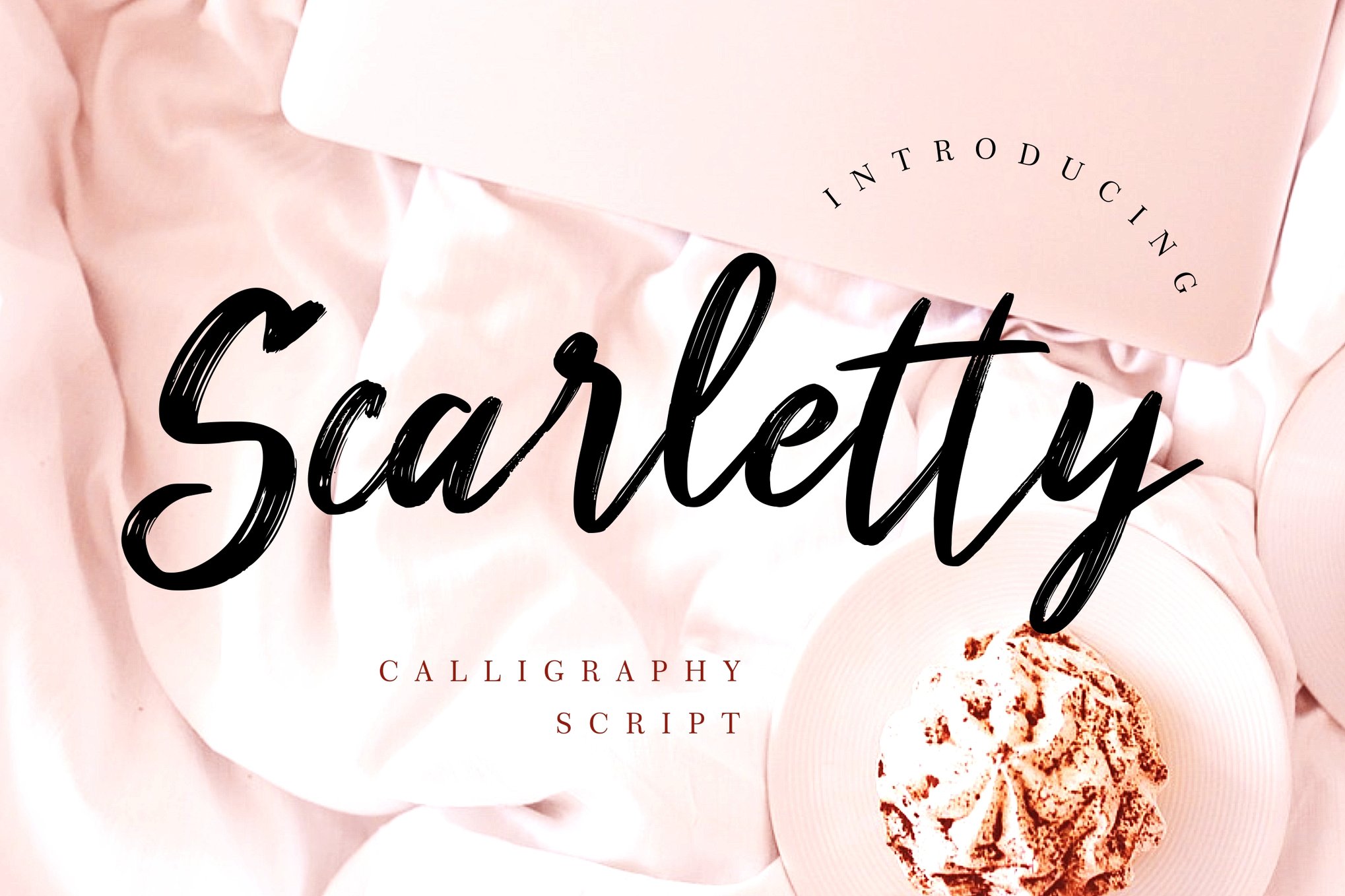
Scarletty Calligraphy Business Font
Scarletty Calligraphy Business Font is perfect for various design applications including luxury business branding, elegant professional signatures, high-end consulting firm materials, boutique law office identities, exclusive event planning services, premium beauty salon signage, sophisticated wedding planning brands, upscale restaurant menus, elegant spa communications, and distinguished personal service providers. This refined typeface excels in projects requiring professional elegance and sophisticated personal touch that builds trust while maintaining luxurious appeal.
What makes Scarletty Calligraphy Business Font so exciting is its perfect fusion of traditional calligraphy artistry with contemporary business sophistication through flowing letterforms that suggest personal attention and premium service quality. The font features elegant stroke variations that convey handcrafted quality, refined flourishes that add distinction without overwhelming professionalism, and sophisticated connections that create seamless elegance. Its distinctive business-appropriate character and calligraphic sophistication make it ideal for service providers seeking to communicate personal excellence, attention to detail, and the kind of bespoke quality that discerning clients expect.
The Scarletty Calligraphy Business Font family includes elegant script weights and professional alternates that enhance its versatility for different business applications. Each style maintains the font's signature sophisticated character while providing options for various professional design approaches. The family also features business-appropriate swashes, elegant ligatures, and refined ornamental elements that can be combined with the letterforms to create cohesive professional service design systems.
Whether you're developing professional service brands, luxury business communications, or sophisticated personal branding, Scarletty Calligraphy Business Font Free Download delivers elegant typography that establishes immediate credibility and premium positioning. This typeface transforms routine business communications into distinguished presentations that reflect personal attention and sophisticated service standards. The font's professional appeal makes it particularly effective for luxury service providers, professional consultants, and businesses targeting clientele who appreciate personal attention and sophisticated quality.
Scarletty Calligraphy Business Font stands out by delivering authentic professional elegance that feels genuinely sophisticated rather than artificially ornate or inappropriately casual for business contexts. Its carefully balanced calligraphic elements and business-appropriate proportions ensure that designs feel professionally distinguished while maintaining personal warmth and approachability. From executive correspondence to luxury service branding, this font provides designers with tools to create communications that celebrate professional artistry and demonstrate sophisticated understanding of business elegance through refined, calligraphy-inspired typography.